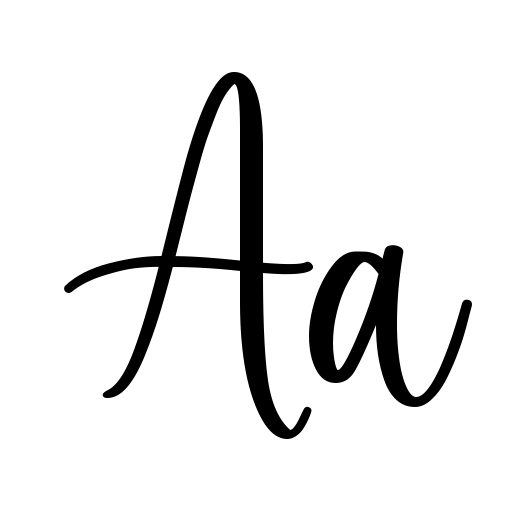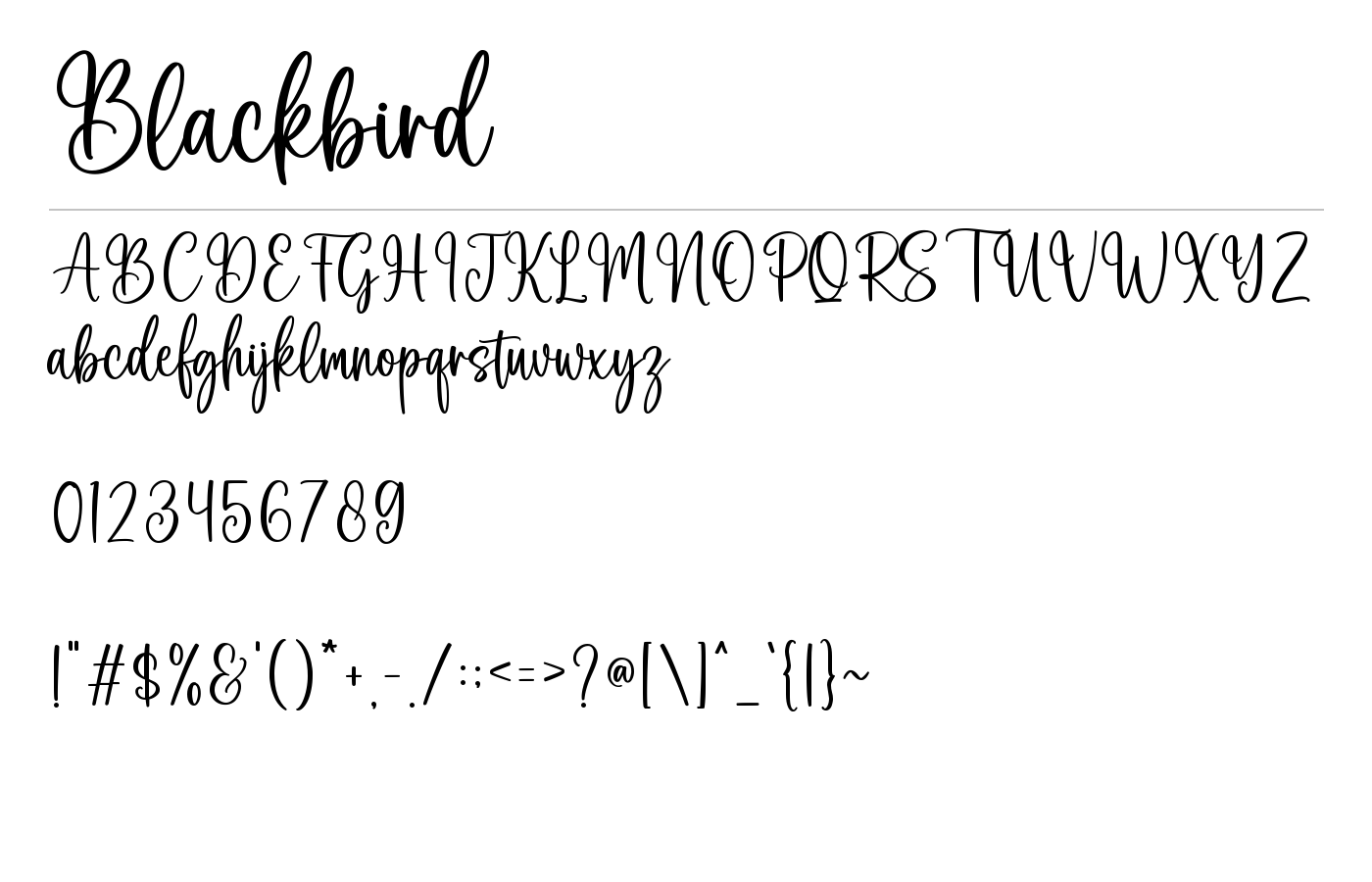
Blackbird Font is a charming script typeface with a graceful, hand-drawn feel that combines elegance with a casual warmth. Its slim, flowing strokes and tall x-height give it a readable yet playful character, making it ideal for invitations, branding, and creative projects seeking a personal, approachable touch. This font works beautifully in headlines and decorative uses where a stylish, friendly script voice is desired.
Blackbird Font
About Blackbird Font